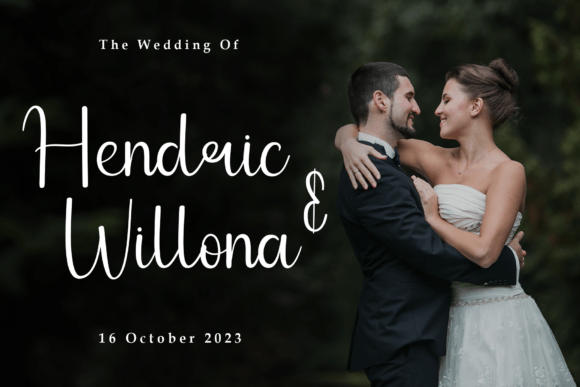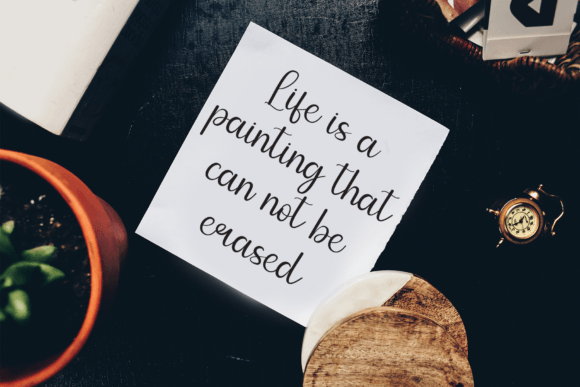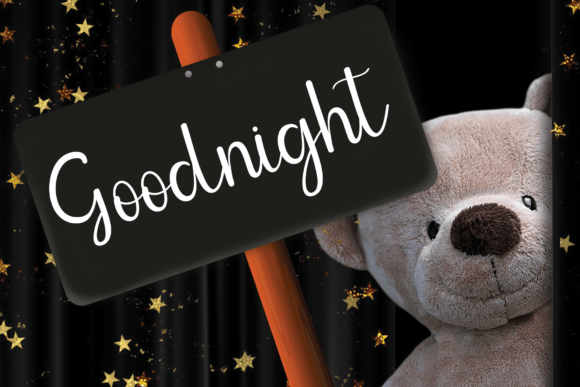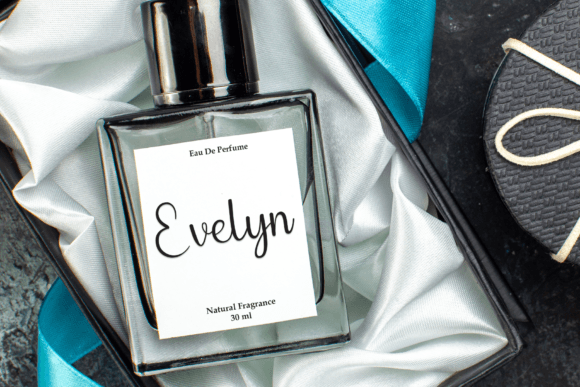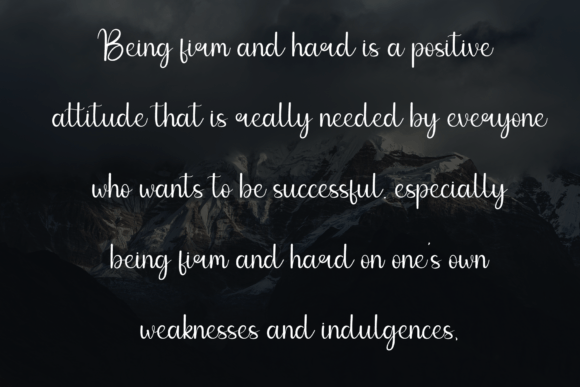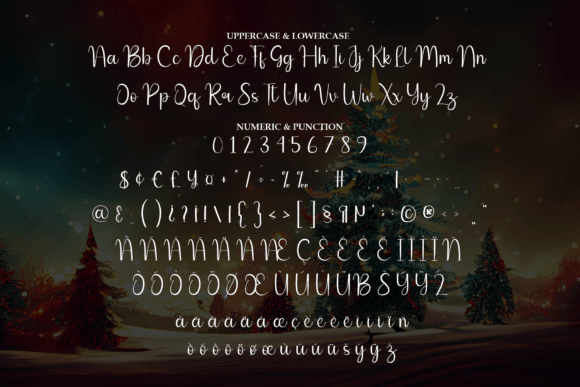
Fantastic Christmas Font: Add a Sweet and Friendly Touch to Your Designs
Are you looking for a font that can add a touch of whimsy and fun to your designs? Look no further than the Fantastic Christmas font! This sweet and friendly handwritten display font is perfect for a variety of design projects, from wedding invitations and cards to holiday-themed crafts and decorations.
What Makes Fantastic Christmas Font So Special?
Fantastic Christmas is a cute and fun font that is sure to bring a smile to anyone’s face. Its handwritten style gives it a personal and approachable feel, making it ideal for designs that require a touch of warmth and personality. Whether you’re creating a wedding invitation, a holiday card, or a festive decoration, this font is sure to add a special touch to your design.
Key Features of Fantastic Christmas Font
• Sweet and Friendly Style: Fantastic Christmas font has a sweet and friendly style that is perfect for adding a touch of whimsy to your designs.
• Handwritten Display Font: This font is a handwritten display font, making it perfect for headlines, titles, and other design elements that require a personal touch.
• Cute and Fun: This font is cute and fun, making it ideal for designs that require a playful touch.
• Versatile: Fantastic Christmas font can be used for a variety of design projects, from wedding invitations and cards to holiday-themed crafts and decorations.
Uses for Fantastic Christmas Font
Fantastic Christmas font is a versatile font that can be used for a variety of design projects. Here are some ideas to get you started:
• Wedding Invitations: Add a touch of whimsy and romance to your wedding invitations with Fantastic Christmas font.
• Holiday Cards: Create festive and fun holiday cards with this font.
• Crafts and Decorations: Use Fantastic Christmas font to add a personal touch to your holiday crafts and decorations.
• Social Media Graphics: Add a touch of fun and personality to your social media graphics with this font.
Why Designers and Crafters Love Fantastic Christmas Font
Designers and crafters love Fantastic Christmas font for its versatility, playfulness, and ease of use. Here are some reasons why:
• Easy to Read: Fantastic Christmas font is easy to read, making it perfect for designs that require a clear and legible font.
• Customizable: This font can be customized to fit your design needs, making it perfect for a variety of projects.
• Unique and Creative: Fantastic Christmas font is a unique and creative font that can help your designs stand out.
Tips for Using Fantastic Christmas Font
Here are some tips for using Fantastic Christmas font in your designs:
• Use it Sparingly: Use Fantastic Christmas font sparingly to add a touch of whimsy to your designs.
• Pair it with Other Fonts: Pair Fantastic Christmas font with other fonts to create a unique and creative design.
• Experiment with Colors: Experiment with different colors to find the perfect combination for your design.
Fantastic Christmas font is a sweet and friendly handwritten display font that is perfect for adding a touch of whimsy and fun to your designs. With its cute and playful style, this font is ideal for a variety of design projects, from wedding invitations and cards to holiday-themed crafts and decorations. Whether you’re a designer or crafter, Fantastic Christmas font is a great addition to your font collection.